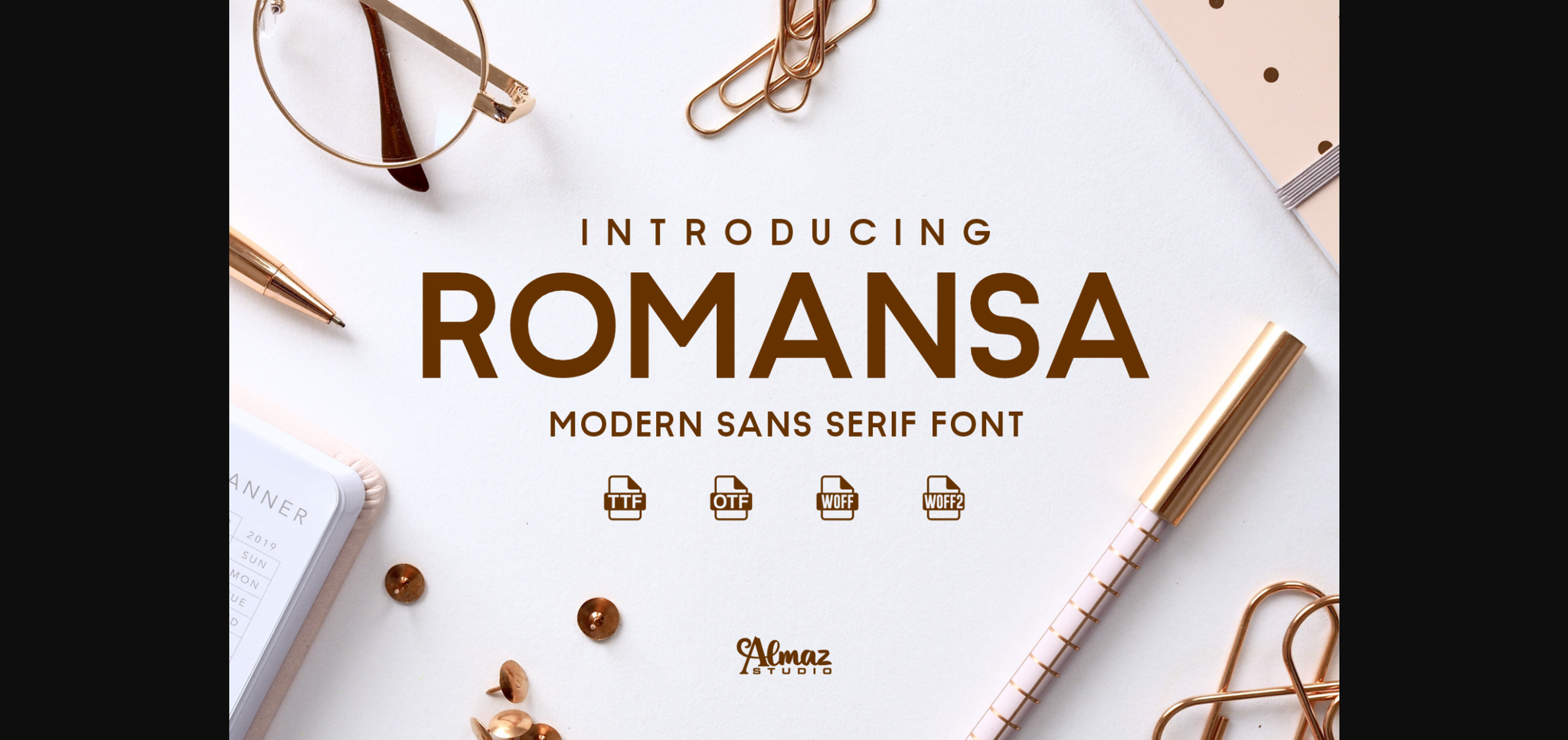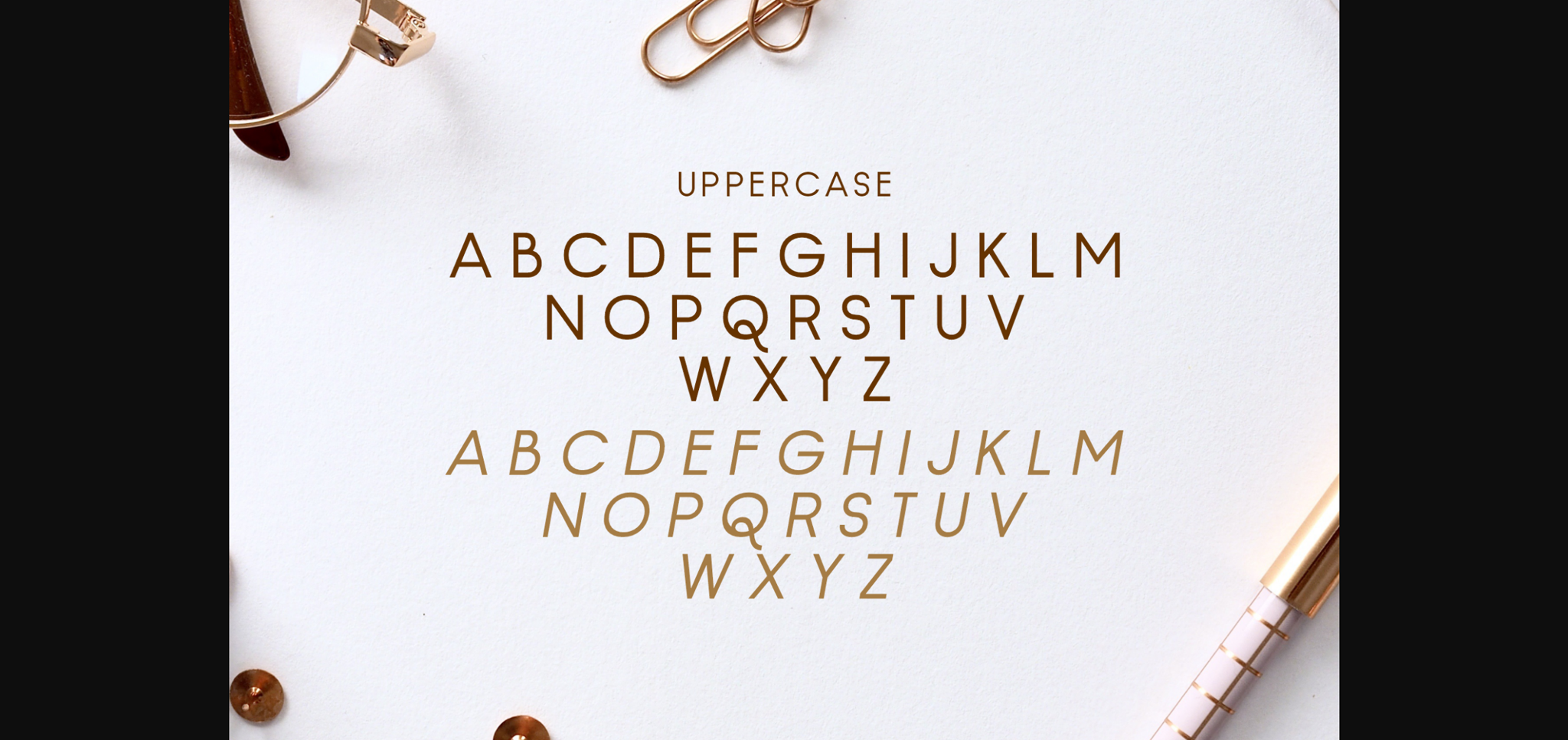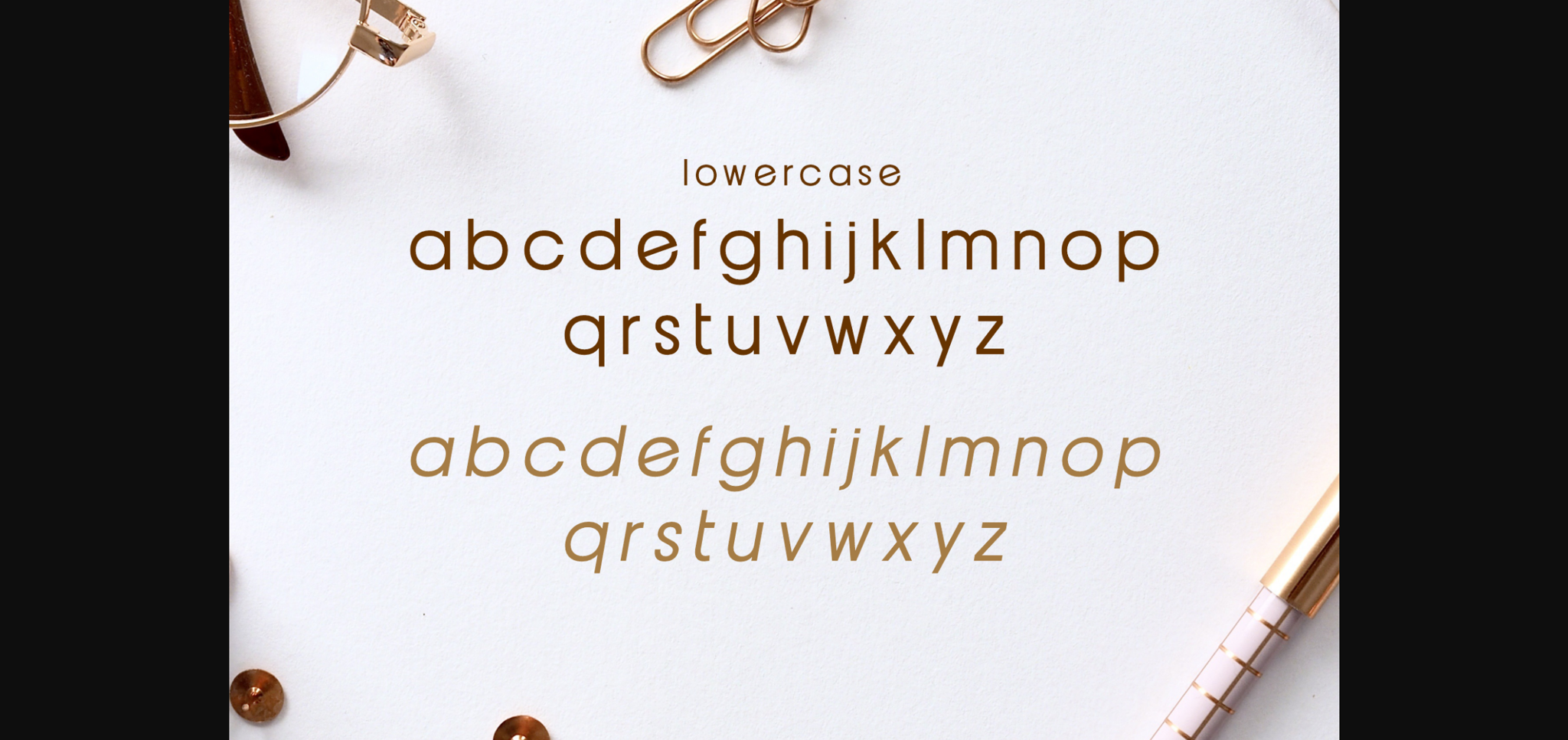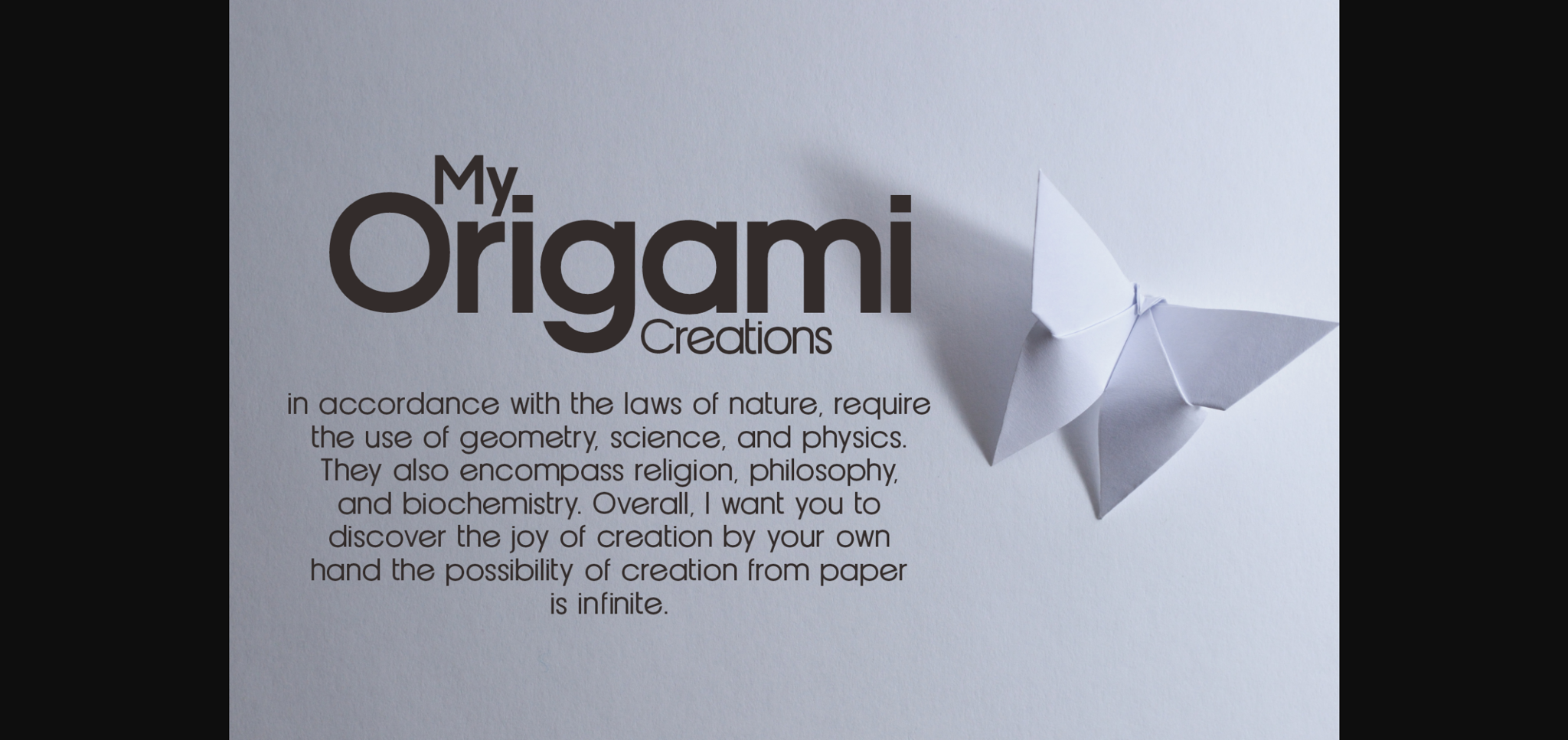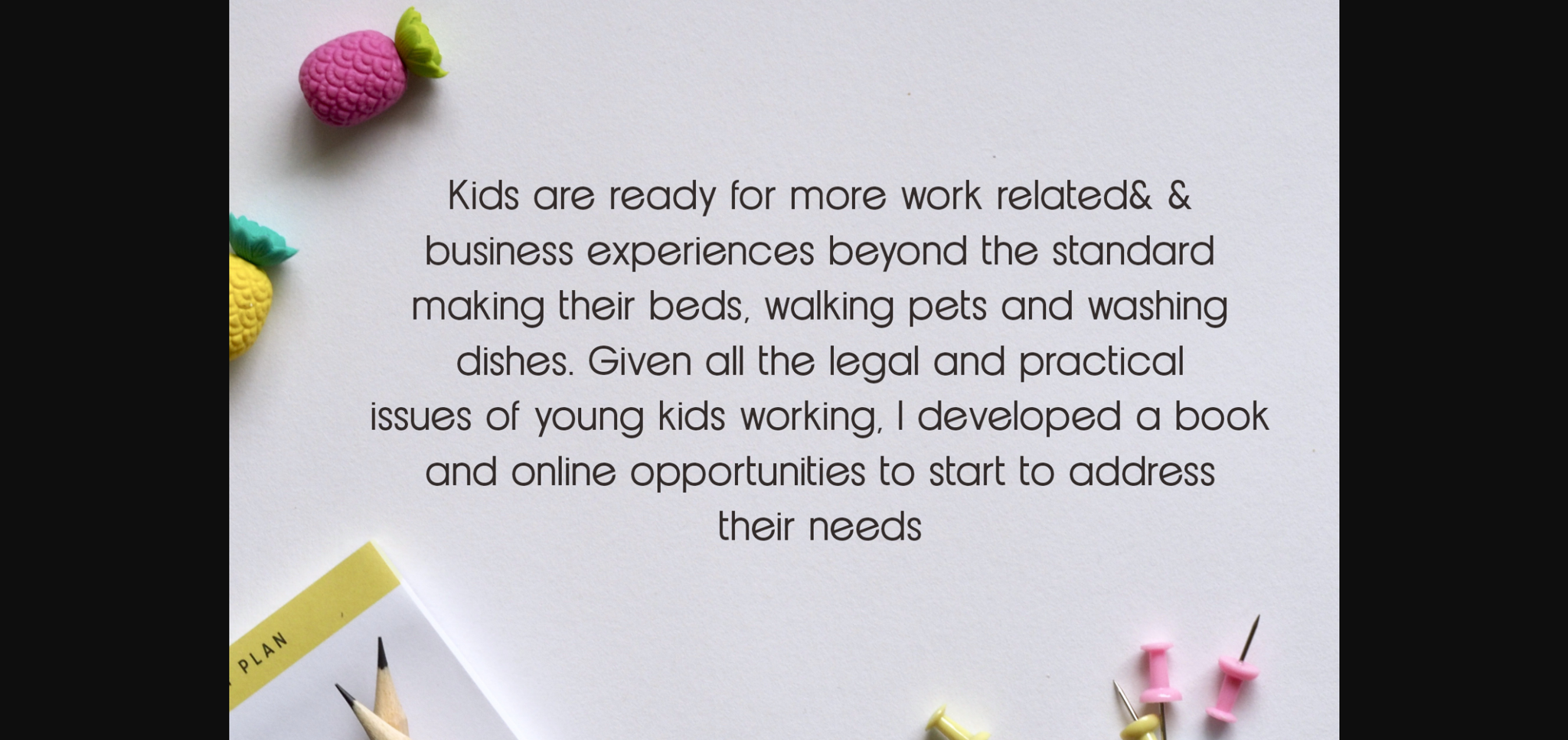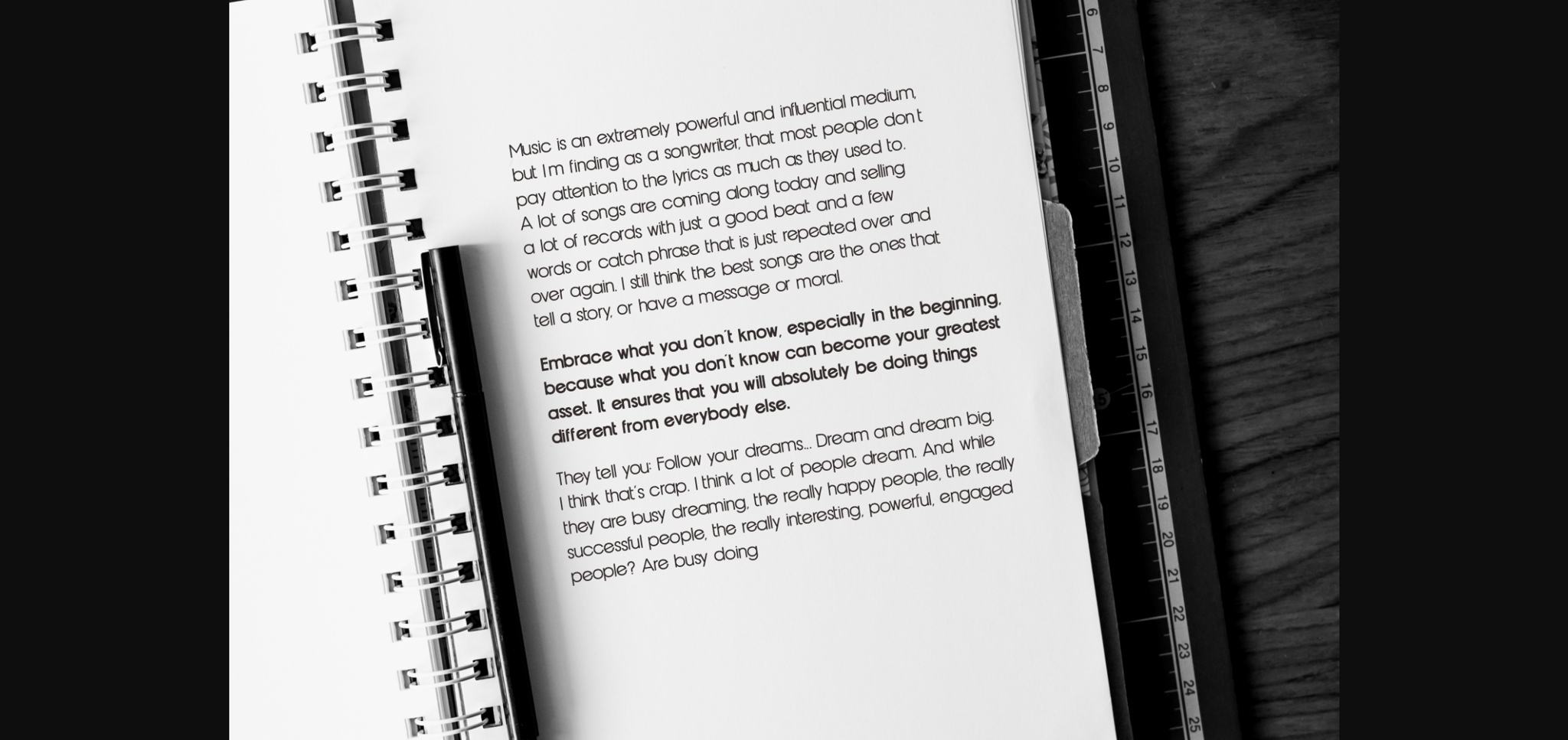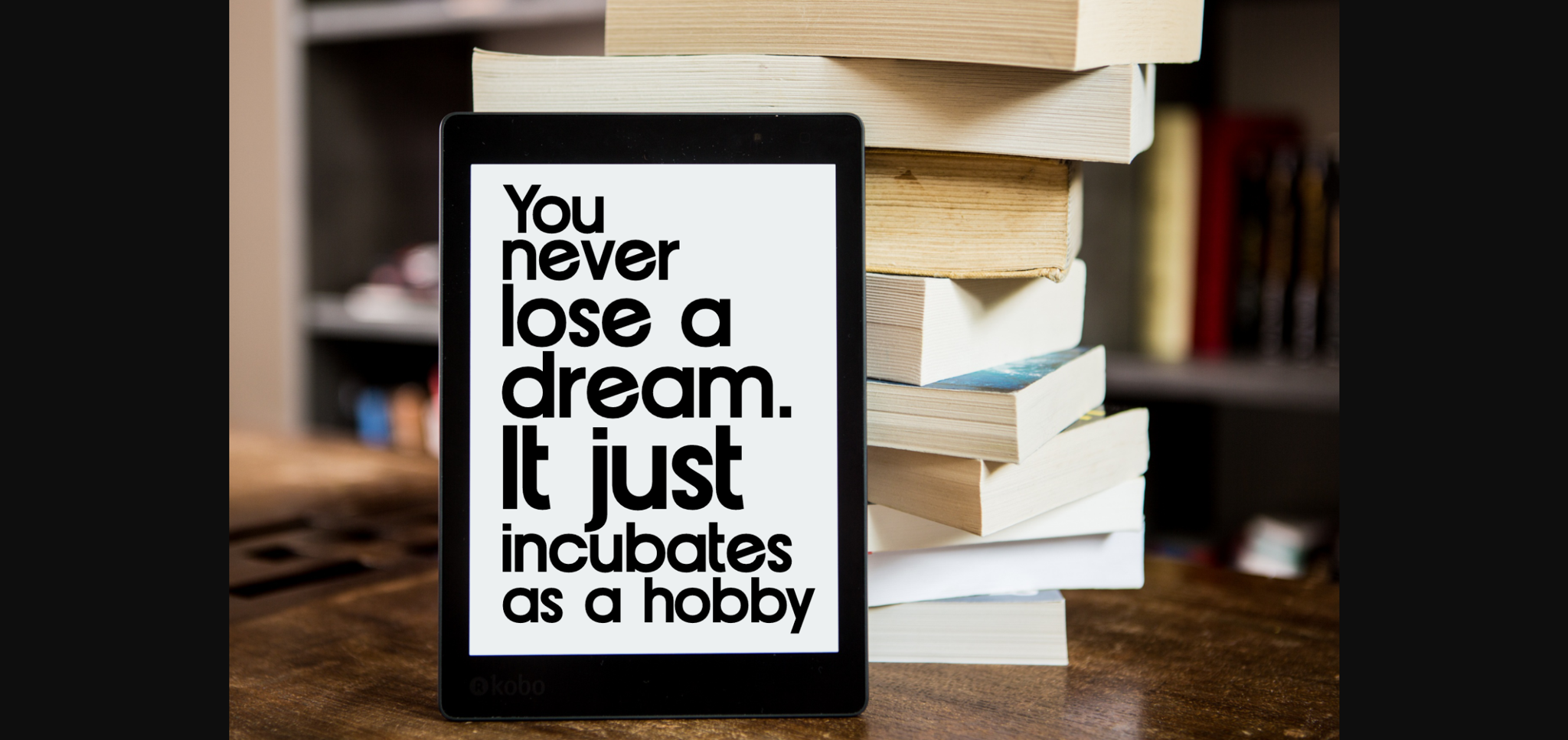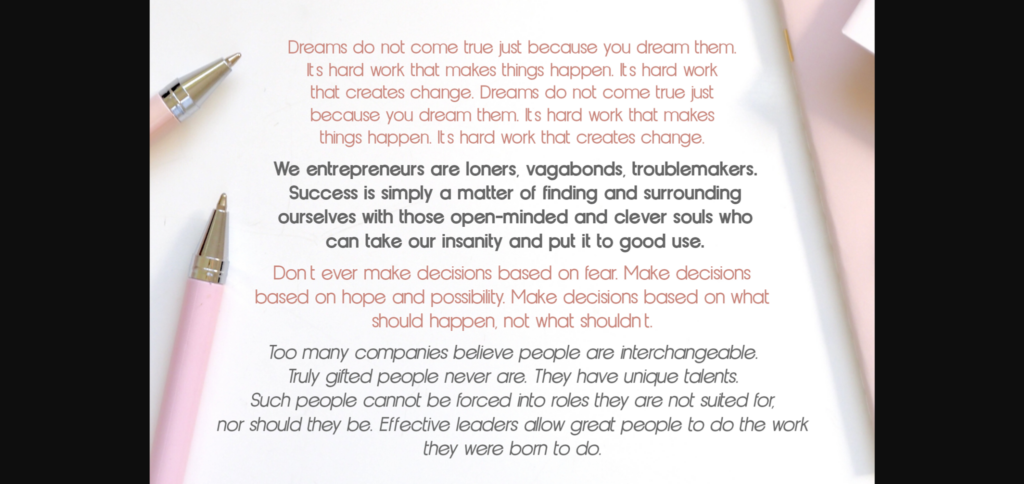
Romansa Font
About Romansa Font
Romansa is a brand-new elegant typeface with a powerful font family. Use it to create posters, web graphics, game graphics, t-shirts, videos, signs, eBooks, logos, and more.
A very strong font character will make your design different and more attractive. This font has several alternatives built into it, perfect for creating logo designs, badges, web fonts, magazines, and more. Upon closer inspection you will notice the terminals of some of the characters are slightly turned inwards, this detail gives its distinctive and friendly personality.